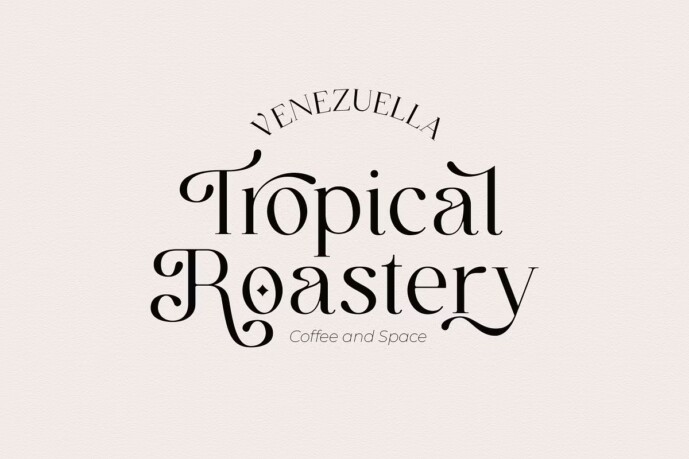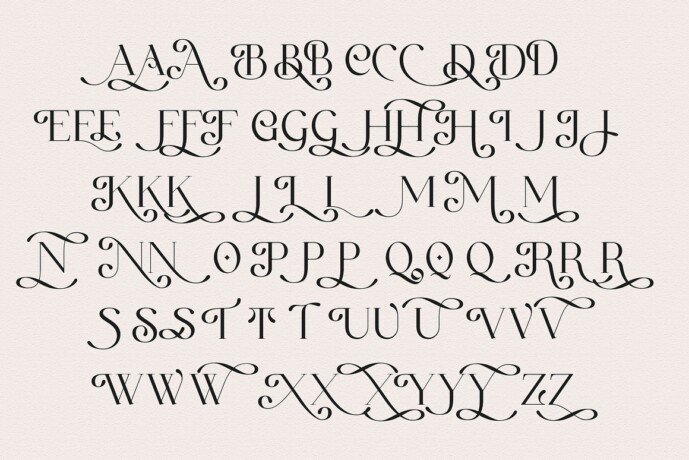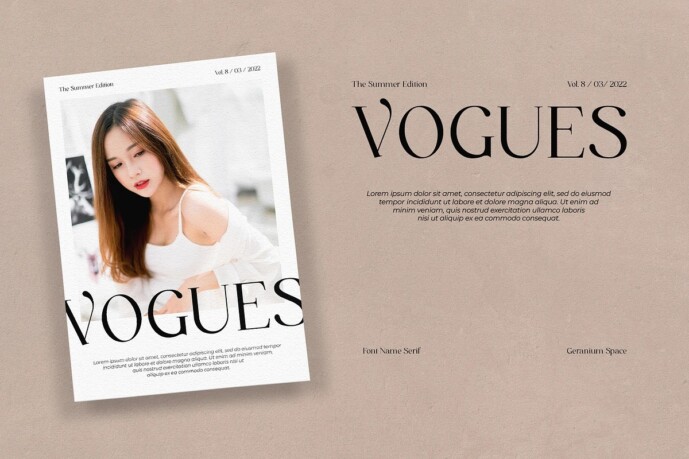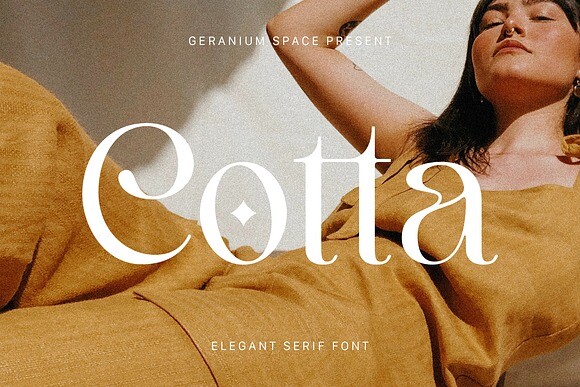
Cotta Font
Designer: Megi Satyo Widodo
Cotta Font – modern serif font, in a feminine style. perfect for web design, branding, logos, invitations, magazines, and more.